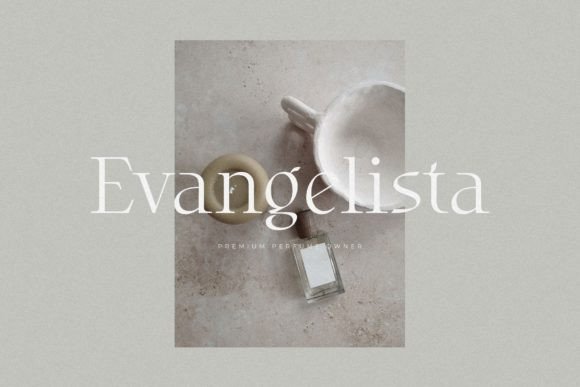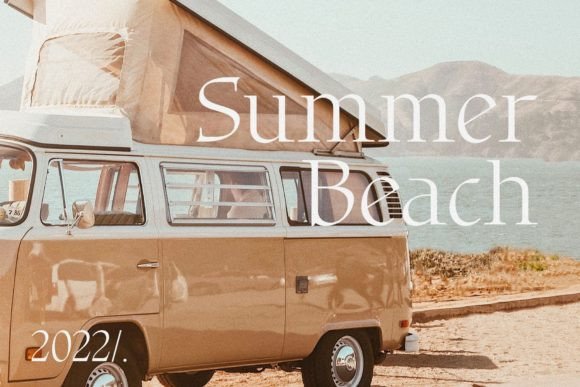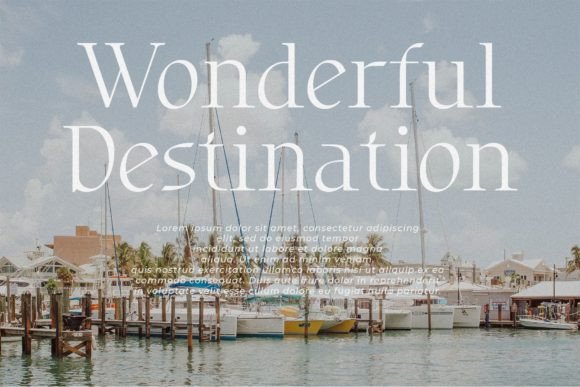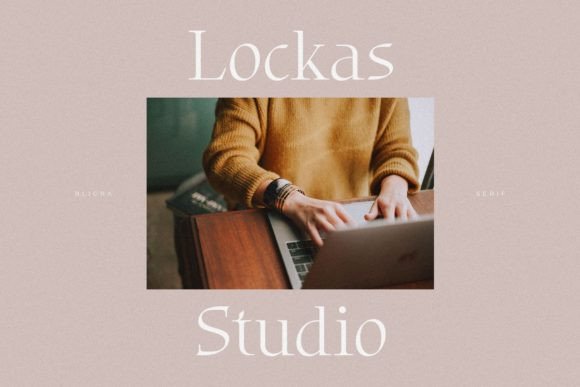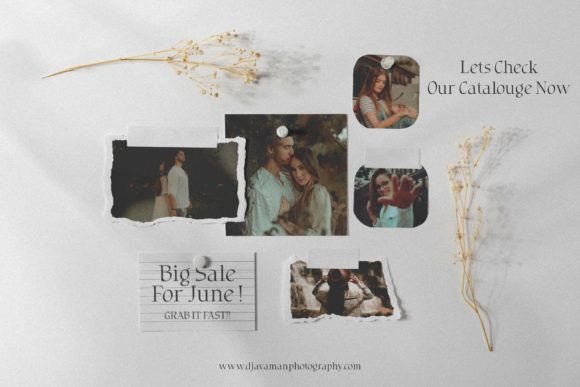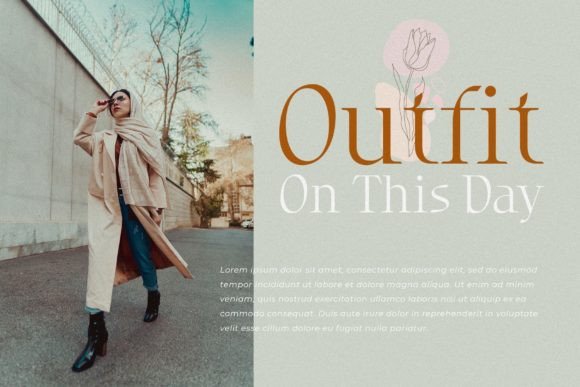
Introducing Bligra Font: Elevate Your Designs with Modern Elegance
In the world of typography, a font can make or break a design. For designers and crafters looking to add a touch of sophistication and style to their projects, Bligra Font is an excellent choice. This modern and stylish typeface is perfect for making a statement, whether you’re working on headings, logos, branding, magazines, product packaging, or invitations.
What is Bligra Font?
Bligra Font is a contemporary typeface designed to bring a sense of elegance and refinement to any project. Its clean lines and smooth curves create a visually appealing aesthetic that is sure to capture attention. With its versatility and range, Bligra Font is an ideal choice for designers seeking to add a professional touch to their work.
Key Features of Bligra Font
- Modern and Stylish: Bligra Font boasts a sleek and modern design, making it perfect for projects that require a fresh and contemporary look.
- Clean Lines and Smooth Curves: The font’s clean lines and smooth curves give it a sophisticated and elegant appearance, suitable for a wide range of applications.
- Versatile: Bligra Font can be used for various design projects, including headings, logos, branding, magazines, product packaging, and invitations.
- Display Font: Bligra Font is best used as a display font for headings and titles, where its unique characteristics can be showcased.
Use Cases for Bligra Font
Bligra Font’s versatility makes it suitable for a variety of design projects. Here are some use cases where Bligra Font can shine:
- Headings and Titles: Use Bligra Font to create eye-catching headings and titles for articles, blog posts, and websites.
- Logos and Branding: Create a lasting impression with Bligra Font, perfect for logos, business cards, and brand identity materials.
- Magazines and Publications: Add a touch of elegance to magazine covers, articles, and editorials with Bligra Font.
- Product Packaging: Make your product stand out with Bligra Font on labels, packaging, and marketing materials.
- Invitations and Events: Create beautiful and sophisticated invitations for weddings, parties, and corporate events.
Benefits of Using Bligra Font
By incorporating Bligra Font into your design projects, you can enjoy several benefits:
- Enhanced Visual Appeal: Bligra Font’s modern and stylish design adds a touch of sophistication to any project.
- Improved Readability: The font’s clean lines and smooth curves ensure excellent readability, even at smaller sizes.
- Unique Identity: Bligra Font helps create a unique and distinctive visual identity for your brand or project.
- Time-Saving: With Bligra Font, you can quickly and easily create professional-looking designs without spending hours on typography.
Bligra Font is an exceptional choice for designers and crafters seeking to add a touch of modern elegance to their projects. With its clean lines, smooth curves, and versatile design, Bligra Font is perfect for a wide range of applications. Whether you’re working on headings, logos, branding, magazines, product packaging, or invitations, Bligra Font is sure to elevate your designs and make a lasting impression.